Jean Lurçat 25
Alverata was put to good use in this booklet and poster accompanying a special exhibition dedicated to French tapestry master Jean Lurçat.
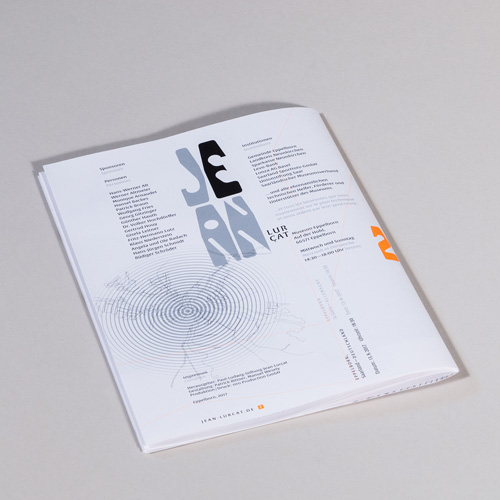
Some 25 years ago, two pastors from Eppelborn, Saarland — Germany, came across the works of French tapestry master Jean Lurçat and became immediate fans. This passion led to a collection and ultimately a museum solely dedicated to Jean Lurçat in Eppelborn. As part of the celebration of the silver anniversary, a bilingual (French–German) poster and brochure were commissioned to Patrick Bittner and Manuel Wesely who is part of the design group MM,M.
Bittner comments on why they chose Dr Gerard Unger’s Alverata font: “The Jean Lurçat Museum Eppelborn project was a collaboration with my friend Manuel Wesely. We decided that each of us should choose a specific typeface for the project. Manuel came up with one and so did I: Alverata, by Gerard Unger, immediately came to mind. Such an imaginative typeface and perfectly readable. Incredible! I knew that one may pair Jean Lurçat’s artworks with something cold and neutral or, as in our case, with something very warm and connecting.”